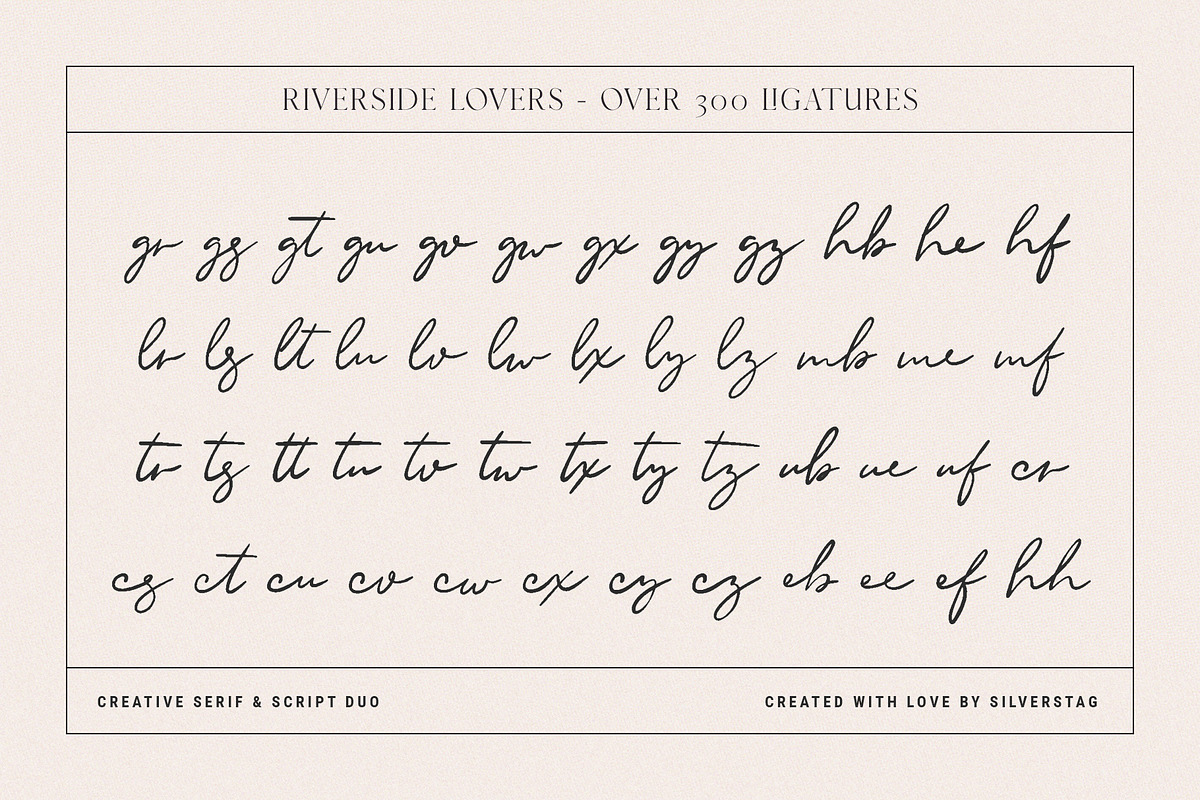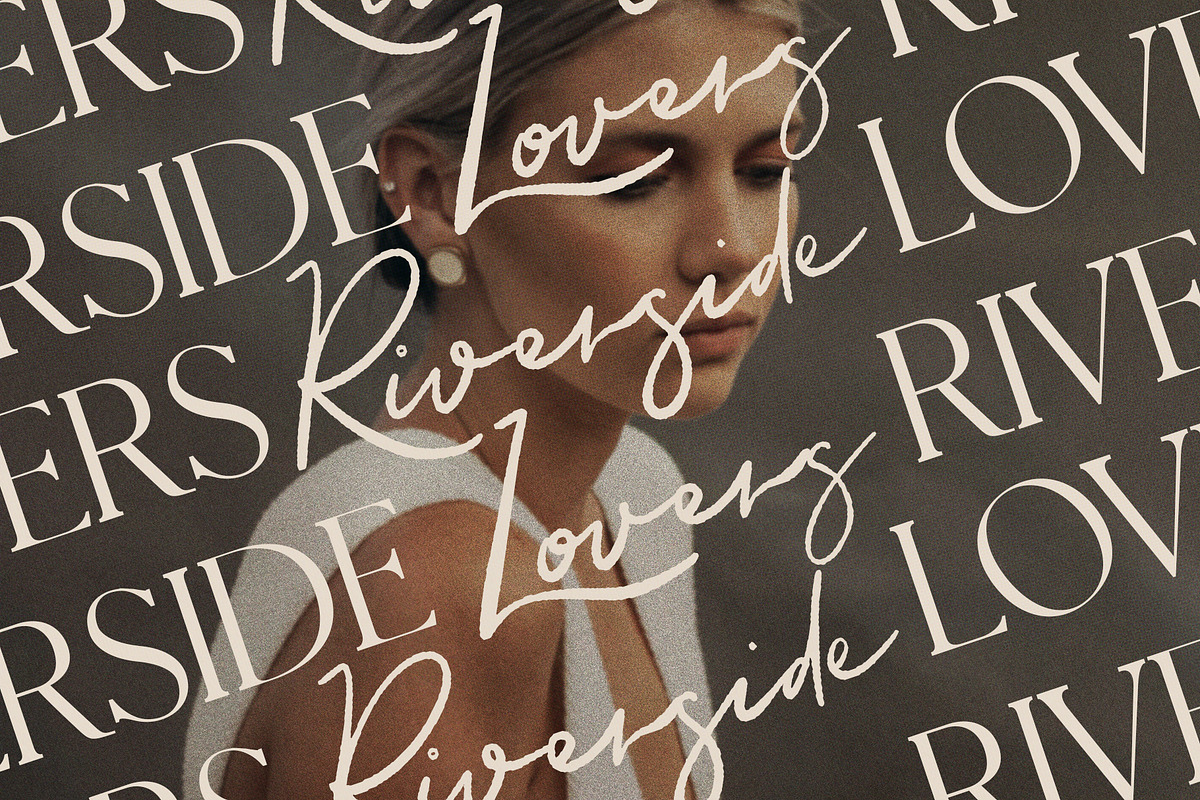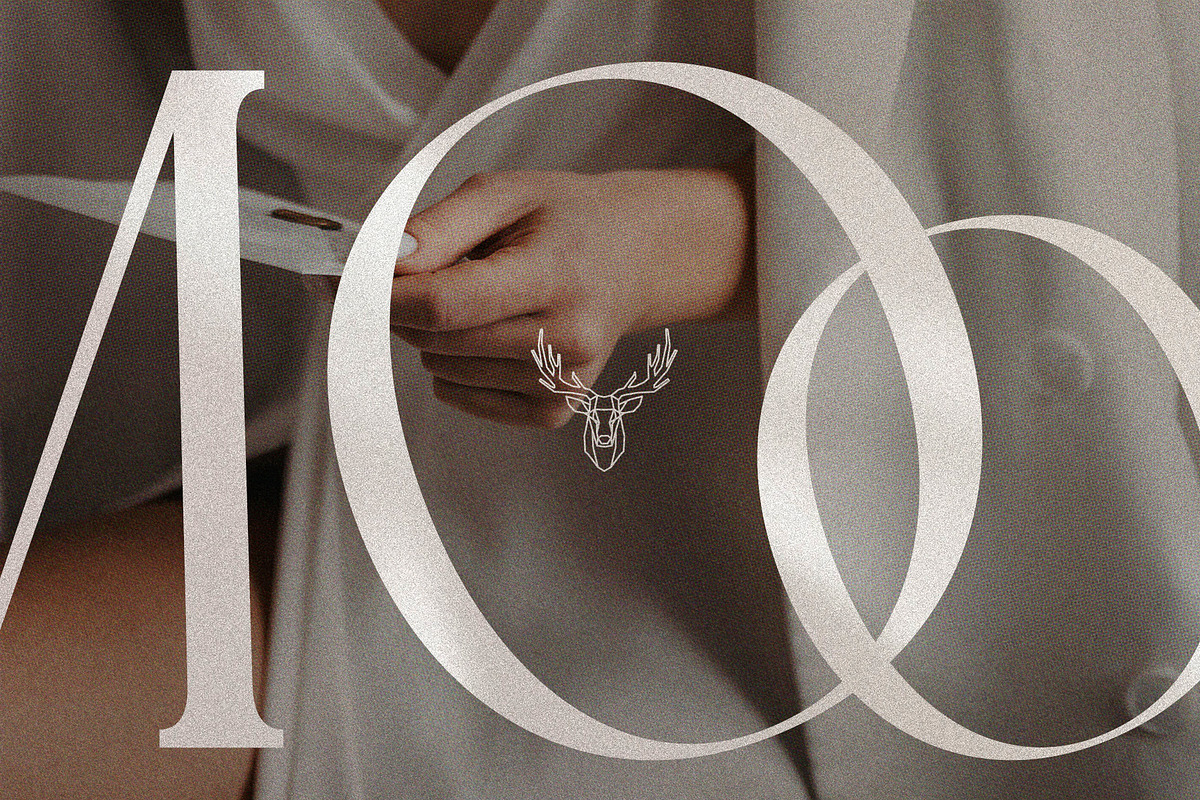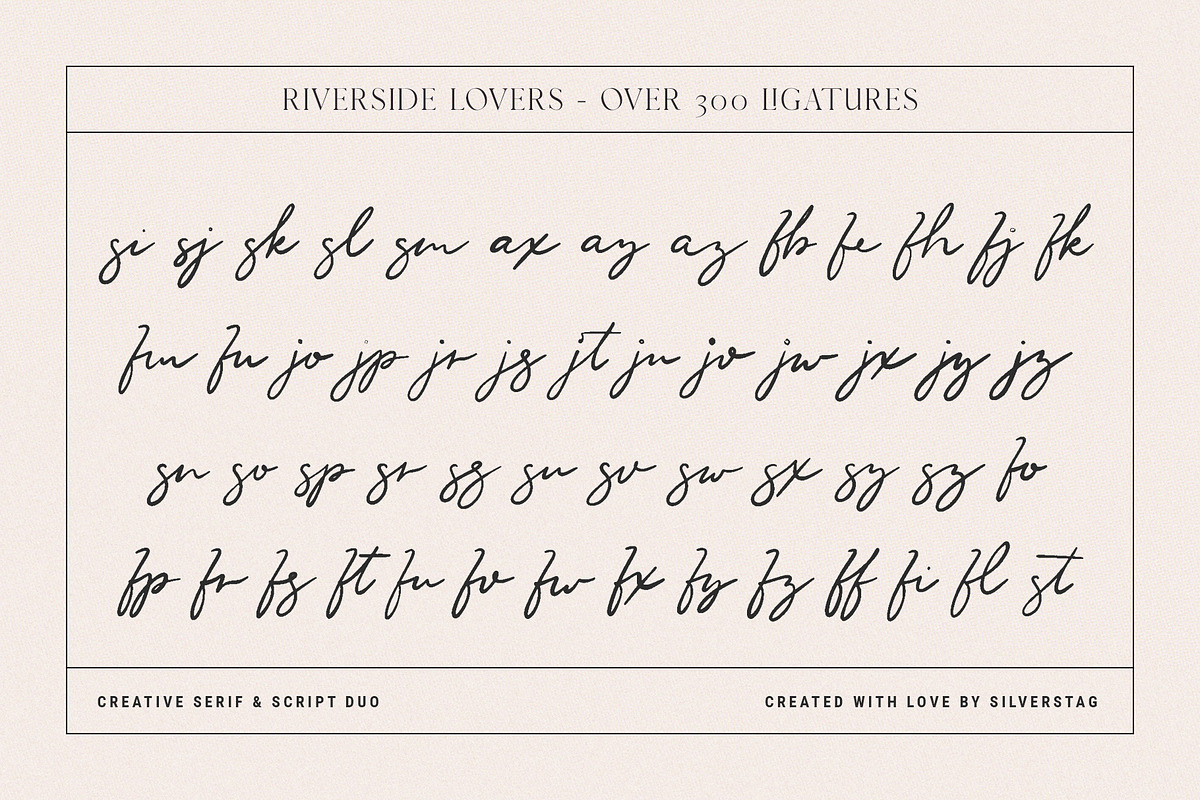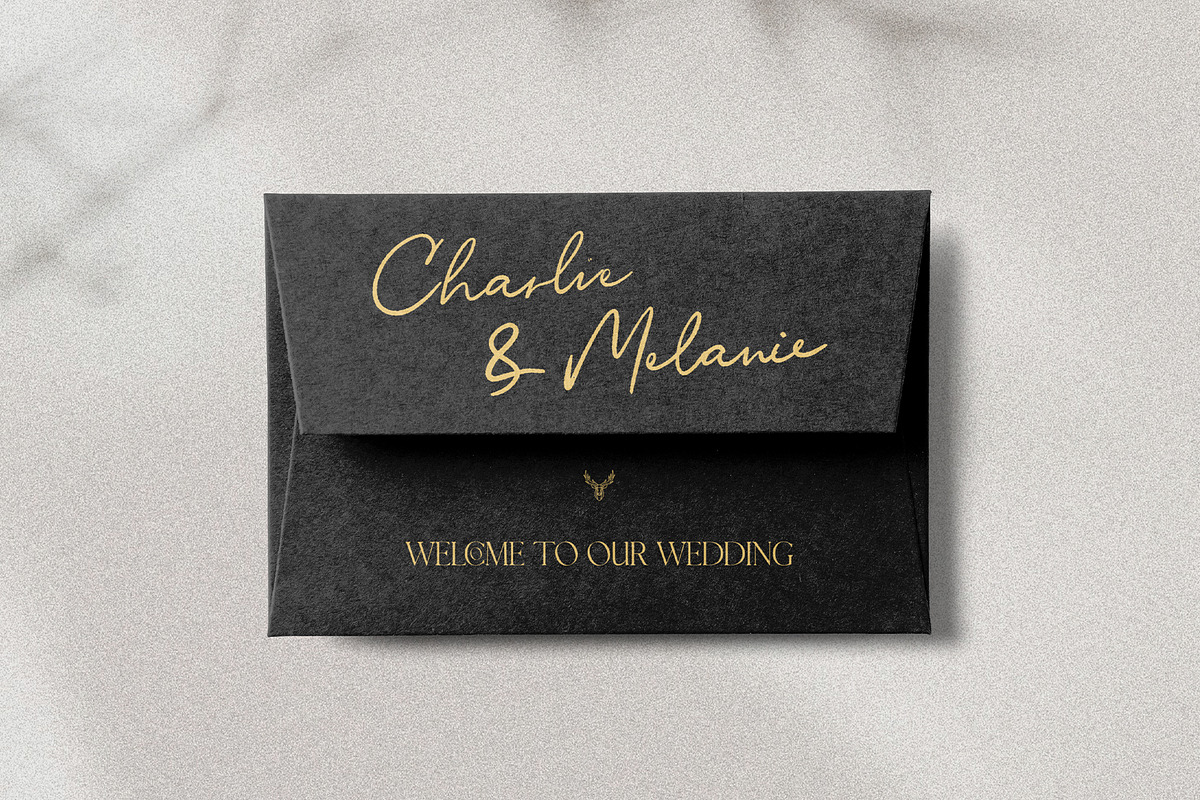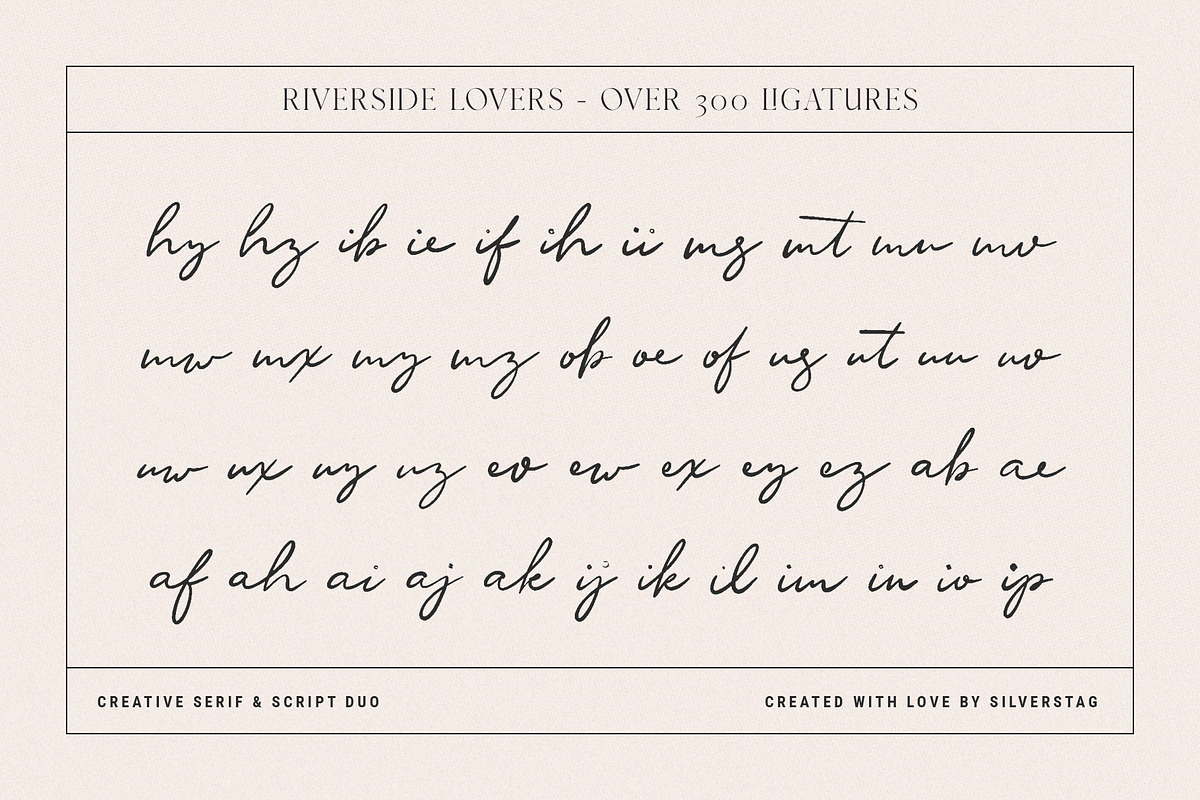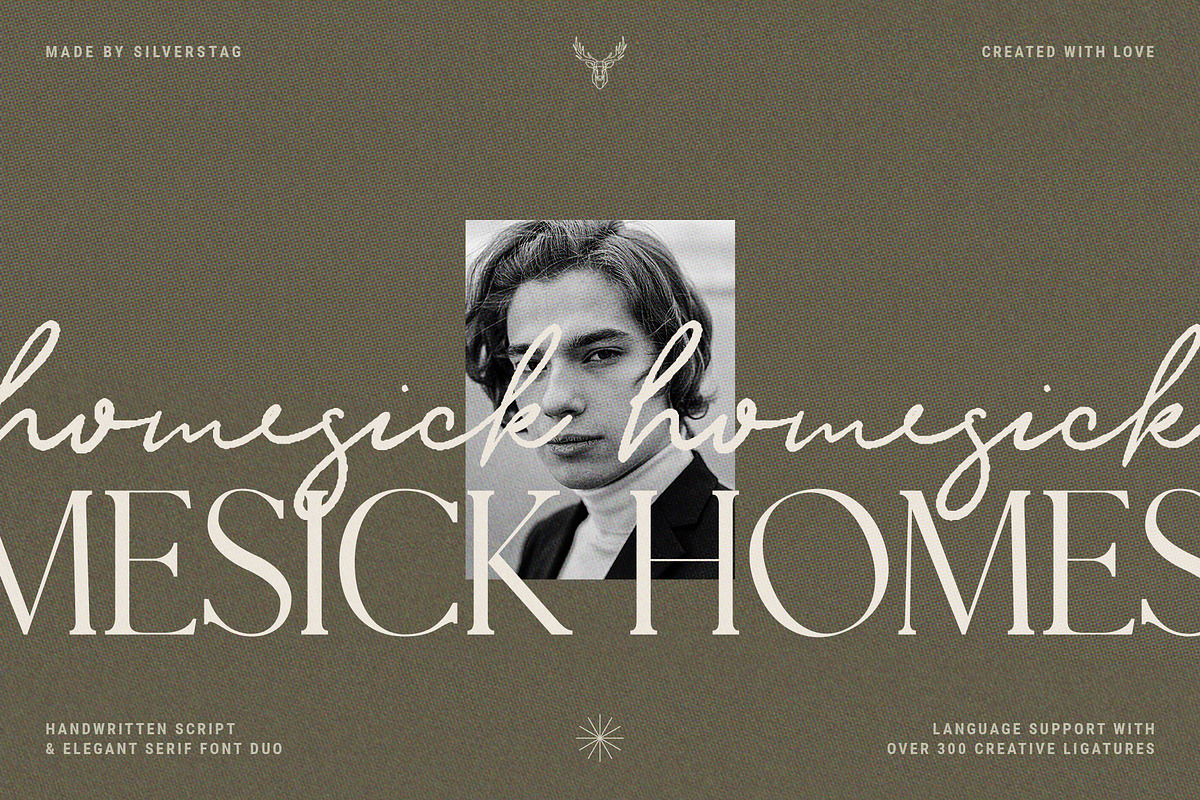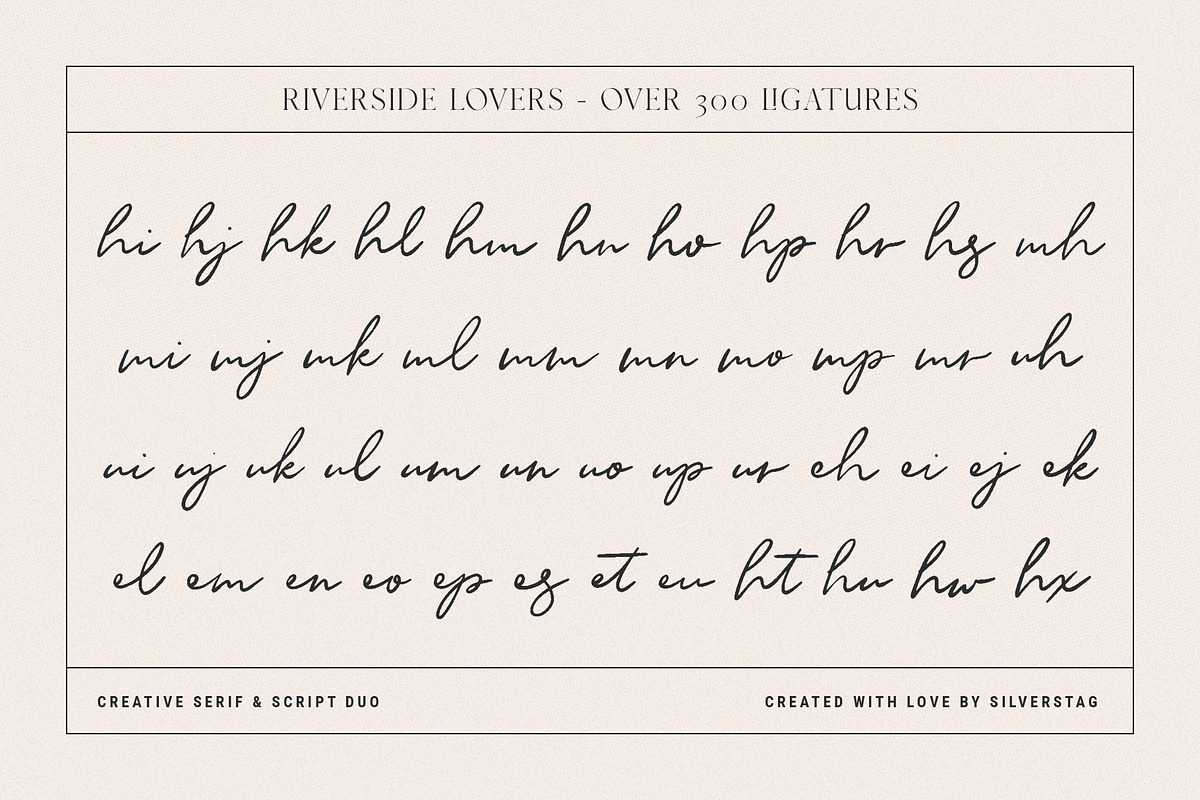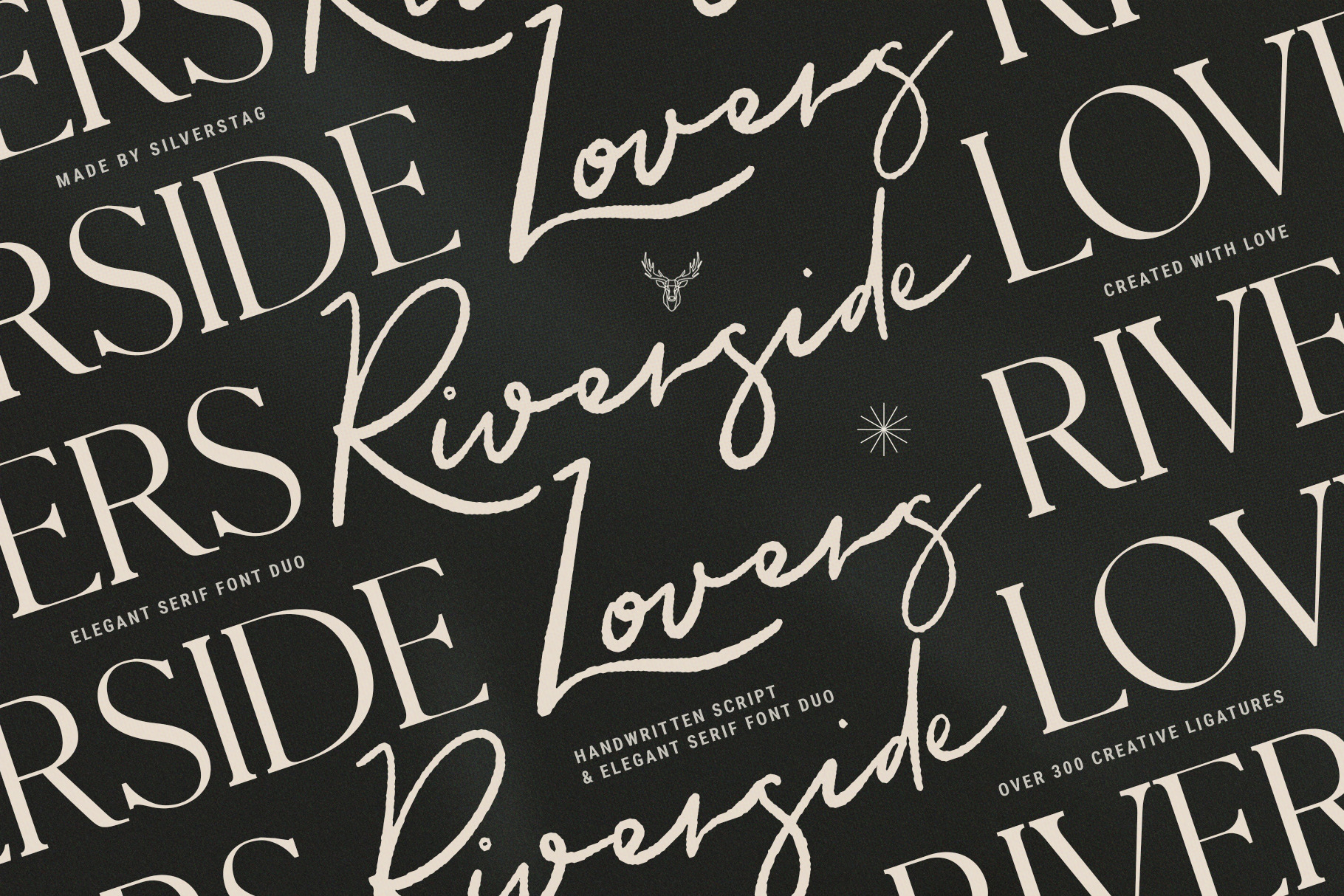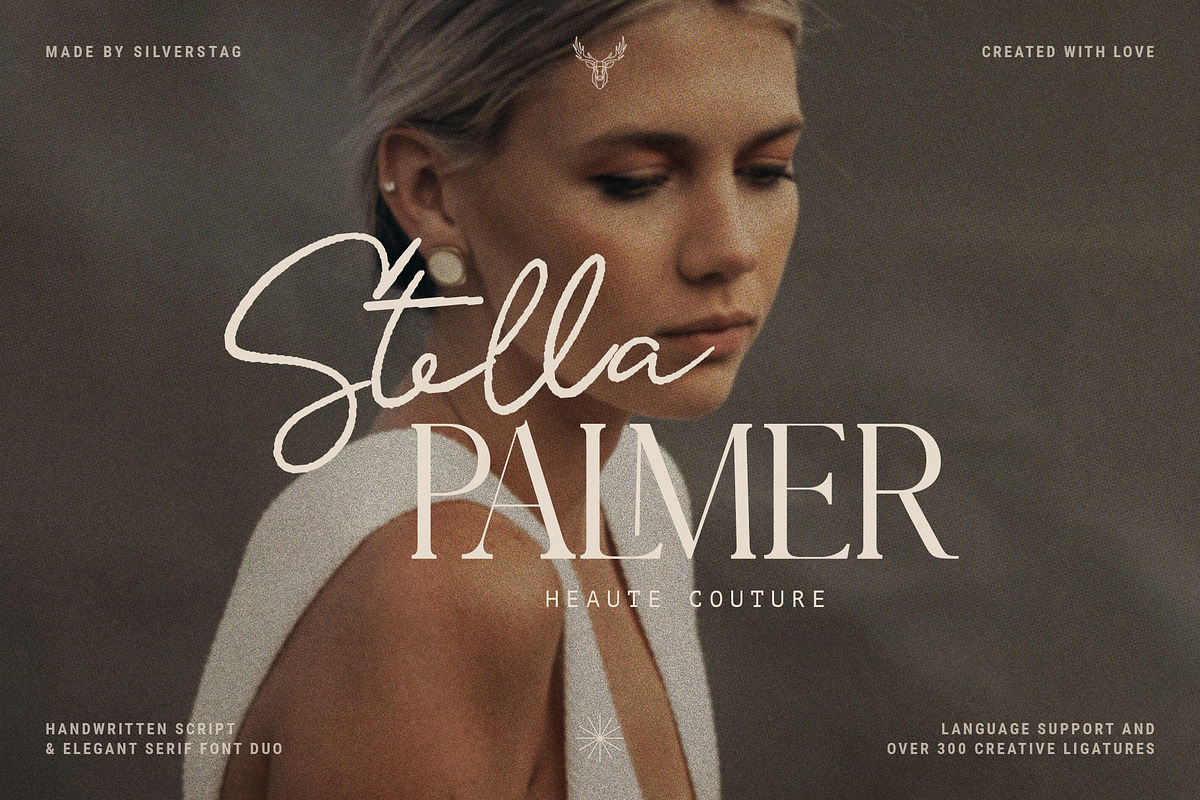
Riverside Lovers - Elegant Font Duo
September just started two weeks ago and cloudy weather is forcing me to stay at home. I feel quite nostalgic about the blue skies of July, and even scorching heat of August. I wanted to transfer my feelings to paper and that's how this romantic font duo was born. I have been working on the script during the heat wave in August, but I have finished the serif in September.
Riverside Lovers script & serif both have full language support and over 300 ligatures. Most of them are included in the script font to give a true handwritten feel to all your designs. I invite you to check out the preview images, and I hope you will be immersed in my vision for this creative typeface that, I am sure, will work for all kinds of interesting projects you might be working on this year.
- Over 300 Ligatures and Alternates
- Full Language Support
- Lowercase and Uppercase letters
Both fonts the following letters: A À Á Â Ã Ä Å C Ç D Ð E È É Ê Ë I Ì Í Î Ï N Ñ O Ø Ò Ó Ô Õ Ö U Ù Ü Ú Û W Ẃ Ŵ ẄẀ Y Ý Ÿ Ỳ Ÿ Æ Œ ß Þ þ in uppercase and lowercase, so they support Danish, English, French, German, Norwegian Bokmål, Portuguese, Spanish, Swedish...